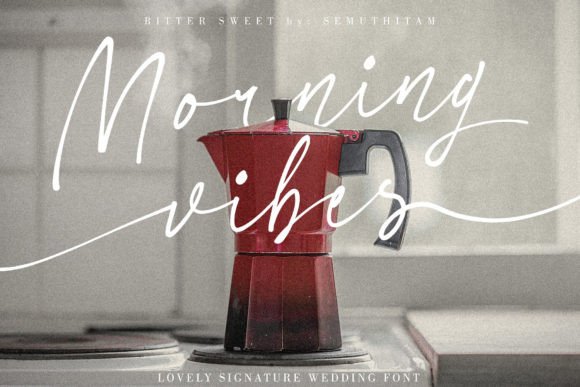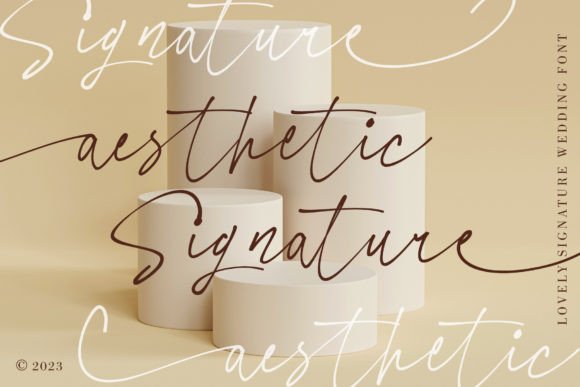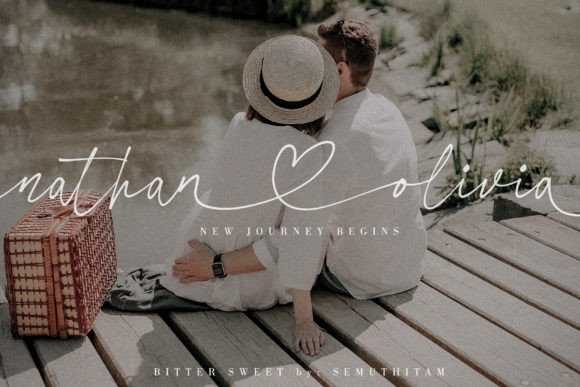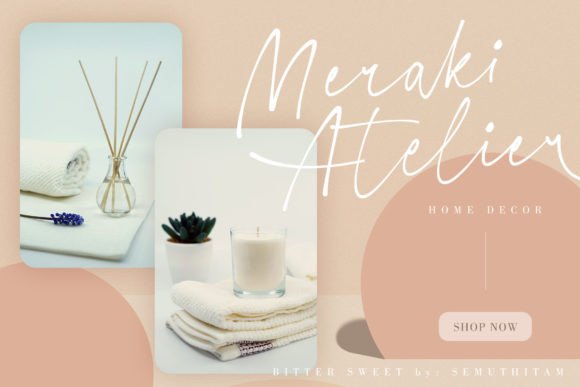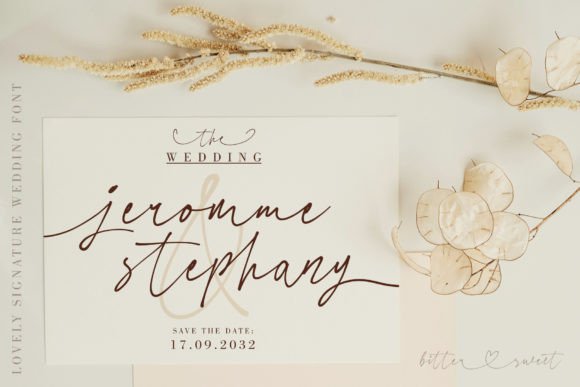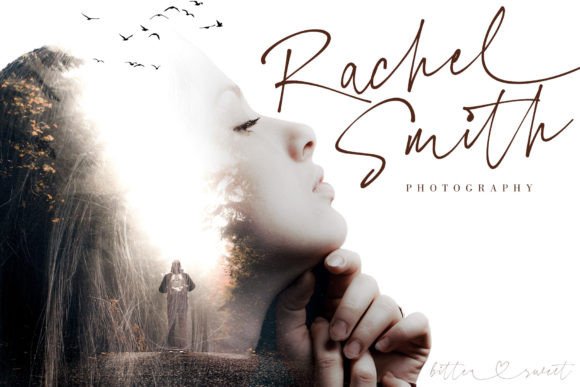
Bitter Sweet Font: The Perfect Choice for Your Special Moments
In the world of typography, fonts play a crucial role in conveying emotions and setting the tone for various designs. When it comes to creating a lasting impression, choosing the right font is essential. This is where Bitter Sweet Font comes in – a lovely signature wedding font designed to make your special moments even more memorable. In this article, we’ll explore the features and benefits of Bitter Sweet Font, and why it’s an excellent choice for designers and crafters.
What is Bitter Sweet Font?
Bitter Sweet Font is a beautiful, handcrafted signature font, created with love and meticulousness. Its unique design makes it perfect for wedding invitations, business cards, branding needs, and other print materials. The font’s elegant and sophisticated style ensures that your designs stand out from the crowd, making it an ideal choice for those who want to add a touch of luxury to their creations.
Key Features of Bitter Sweet Font
- Unique and Elegant Design: Bitter Sweet Font boasts a distinctive and refined design, making it perfect for creating stunning wedding invitations, business cards, and other print materials.
- Handcrafted with Love: The font is carefully crafted with attention to detail, ensuring that every letter and curve is perfect.
- Versatile: Bitter Sweet Font is suitable for various design needs, including branding, wedding invitations, business cards, and more.
Why Choose Bitter Sweet Font?
With so many fonts available, why should you choose Bitter Sweet Font? Here are a few reasons:
- Stand Out from the Crowd: Bitter Sweet Font’s unique design ensures that your creations stand out from the crowd, making it perfect for those who want to make a lasting impression.
- Perfect for Wedding Designs: The font’s elegant and sophisticated style makes it ideal for wedding invitations, wedding planning, and other wedding-related designs.
- Branding and Business: Bitter Sweet Font is also suitable for branding and business needs, such as business cards, letterheads, and more.
- Support for Designers and Crafters: The font is designed to be easy to use, making it accessible to designers and crafters of all levels.
Tips for Using Bitter Sweet Font
To get the most out of Bitter Sweet Font, here are a few tips:
- Pair it with Other Fonts: Experiment with pairing Bitter Sweet Font with other fonts to create a unique and visually appealing design.
- Use it for Headings and Titles: The font’s elegant design makes it perfect for headings and titles, adding a touch of sophistication to your creations.
- Experiment with Colors and Textures: Try out different colors and textures to add depth and interest to your designs.
In conclusion, Bitter Sweet Font is a beautiful and elegant signature wedding font that’s perfect for designers and crafters. Its unique design, versatility, and ease of use make it an excellent choice for various design needs, including wedding invitations, business cards, branding, and more. Whether you’re a professional designer or a crafter, Bitter Sweet Font is sure to make your creations stand out. So why wait? Get your hands on Bitter Sweet Font today and make your designs truly special.